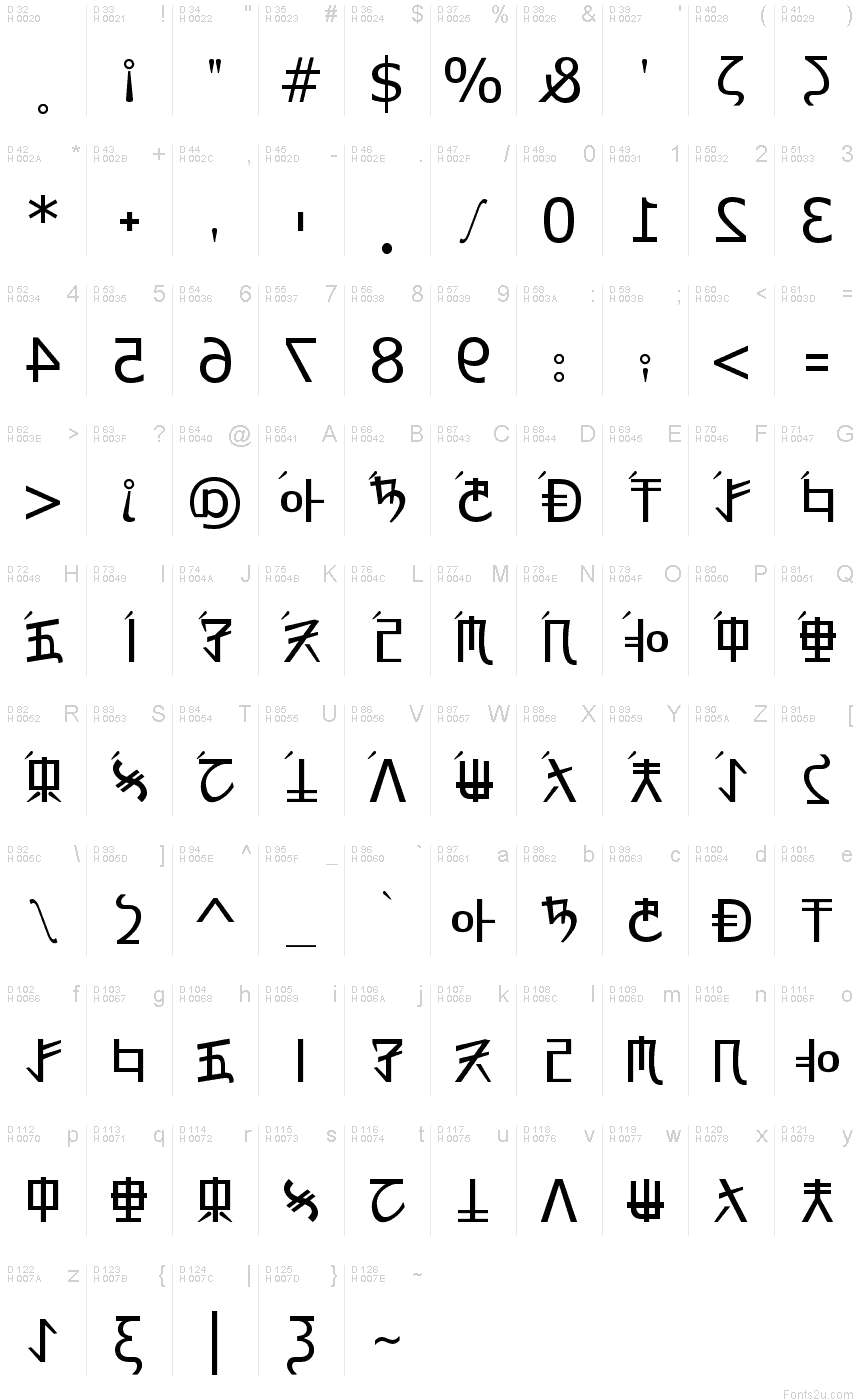
Rex Revol
For Rex Revol Font: (^_^)
*SPACES are represented by a degree sign under every last word.
*PERIODS are represented by a dot sign under every last word.
*EXCLAMATION POINT/QUESTION MARK/and NUMBERS are coded Upside Down
Use Rex Revol Doublet Font for double letters!
Small and Capital letter commands:
Alt+A,A for double letter A
Alt+B,B for double letter B
Alt+C,C for double letter C
Alt+D,D for double letter D
...up to double letter Z
Additional Command/s:
Alt+' for apostrophe
Alt+N,Y for or